Font ligatures are one of the most purposeful elements in graphic design, especially in long forms of text. The word ligature comes from the Latin ligare, meaning “to tie”. A ligature in fonts combines two or three characters into a single character to help with kerning and for decorative purposes.
For this tutorial, we’ll use two fonts from Envato Elements. Karin has some great font ligatures we can use to show how to use ligatures in Photoshop or any other Adobe software. We’ll also use Mondia so you can check the common ligatures included with most fonts.
A standard ligature in fonts combines two or three characters into a single character. This type of ligature helps with the kerning when some characters take over the horizontal space of the next character. There are different ligatures depending on the language. In English, ligatures with ff, ffi, fi, and fl are common because there are many words with these combinations. Ligatures need to be used carefully as they can look very obvious if your text contains wide letter spacing.
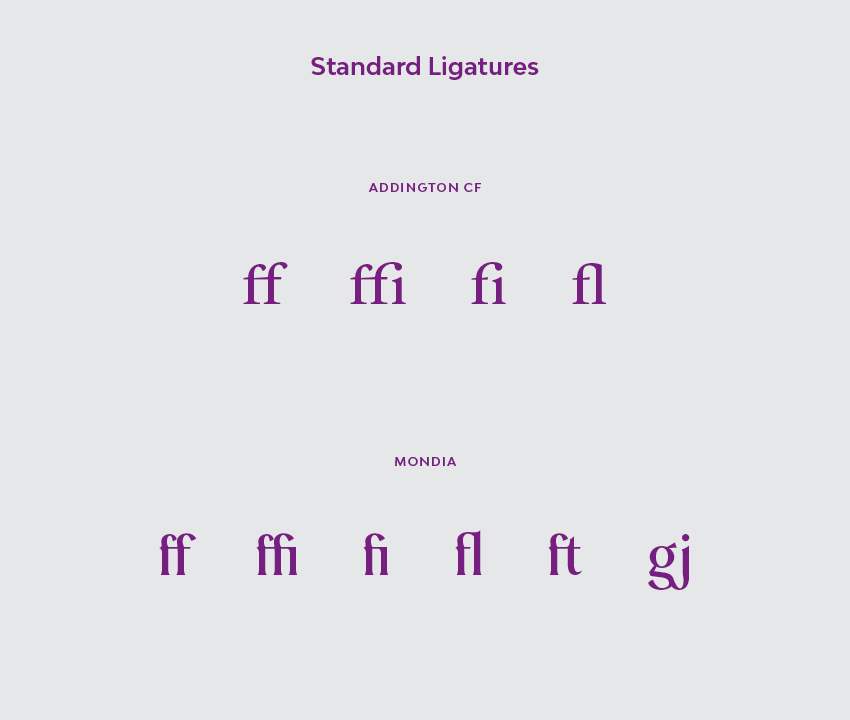
The second type of ligature is discretionary ligatures, and these tend to be decorative. These ligatures also combine two or three characters into a single graceful character design. Combinations like TH, th, ck, ct, et, and st exist, as do double characters like oo, tt, and ll. Just like standard ligatures, these types of ligatures need to be used carefully.
It’s important to clarify that not every font contains standard and discretionary ligatures. Every font is different, and it’s ultimately the font designer’s decision to include them.
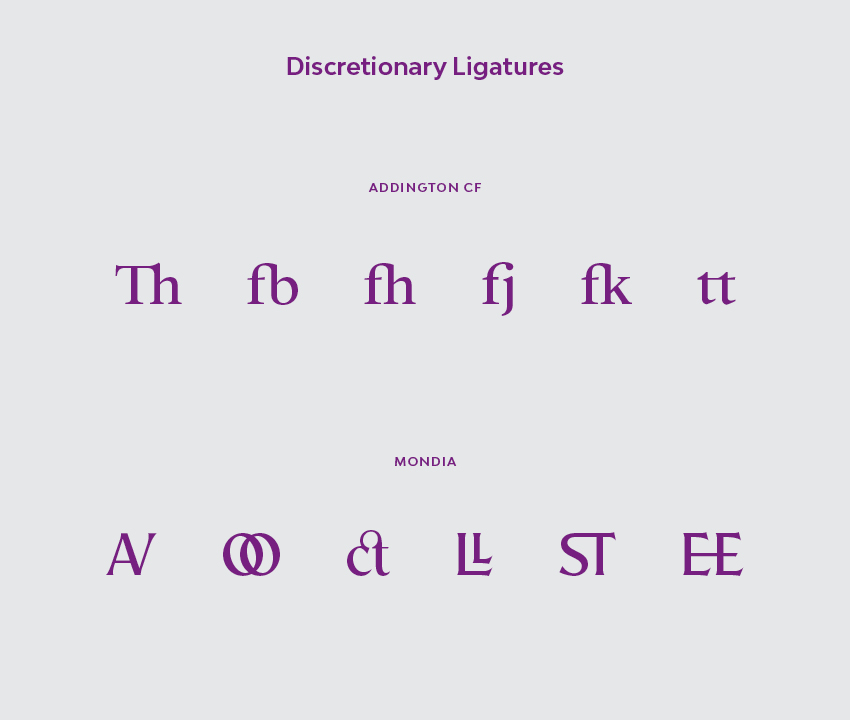
Open Adobe InDesign and create a new document. Head over to Window > Type > Glyphs to open the Glyphs panel.
To activate or deactivate ligatures, open the Character panel by going to Window > Type > Character. Click on the top right corner menu and select Ligatures to activate or deactivate them.
Select the Text Tool (T) from the toolbar and type any text. For this tutorial, I’ll use “THE TWIN MOON INN”. Set the Font to Mondia.
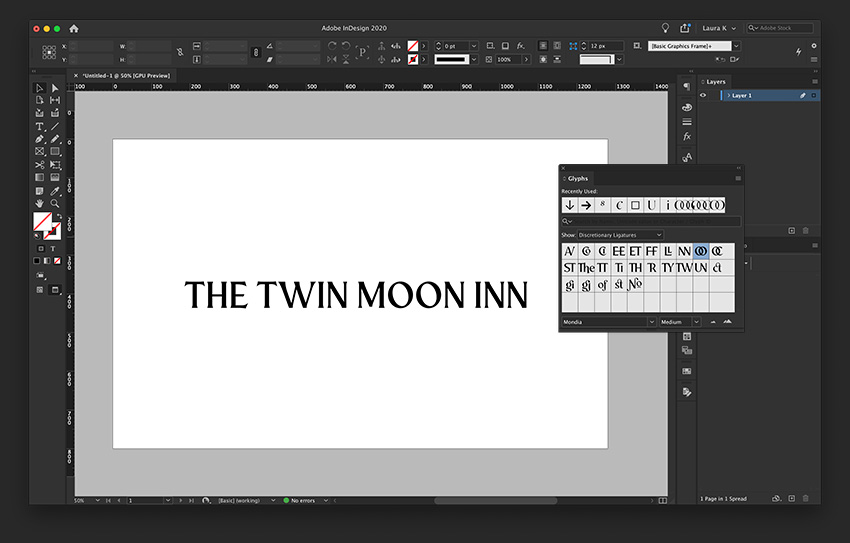
On the Glyphs panel, set the subset of glyphs to Standard Ligatures.
To use the ligatures on the Glyphs panel, select the pair of characters you would like to change using the Text Tool (T). Double-click on the ligature of your choice on the Glyphs panel. Remember to activate the ligatures on the Character panel if you want them to appear automatically.
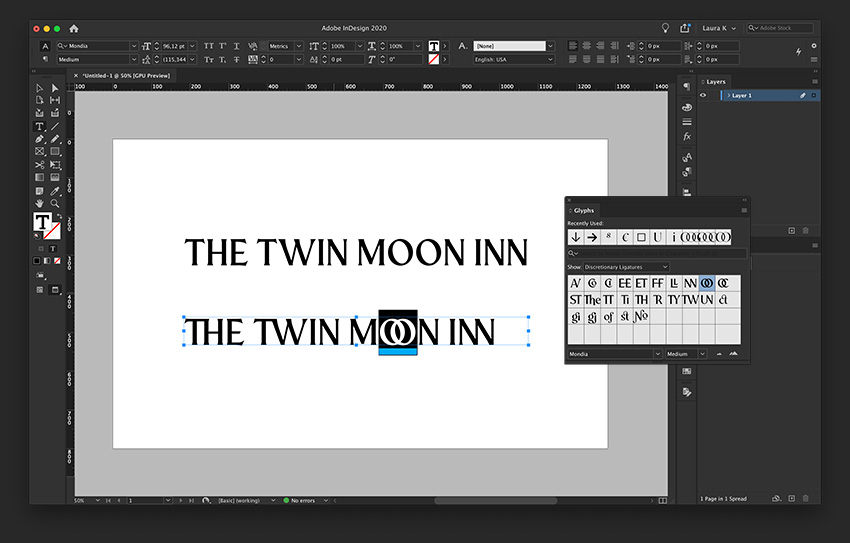
Open Adobe Photoshop and create a new document. Head over to Window > Glyphs to open the Glyphs panel.
To activate or deactivate automatic ligatures, open the Character panel by going to Window > Character. On this panel, the first button activates Standard Ligatures, while the third button activates Discretionary Ligatures. I will deactivate both so we can take a further look into the Glyphs panel.
Select the Text Tool (T) from the toolbar and type any text. For this tutorial, I’ll use “Chanting at the Inn”. Set the Font to Karin.
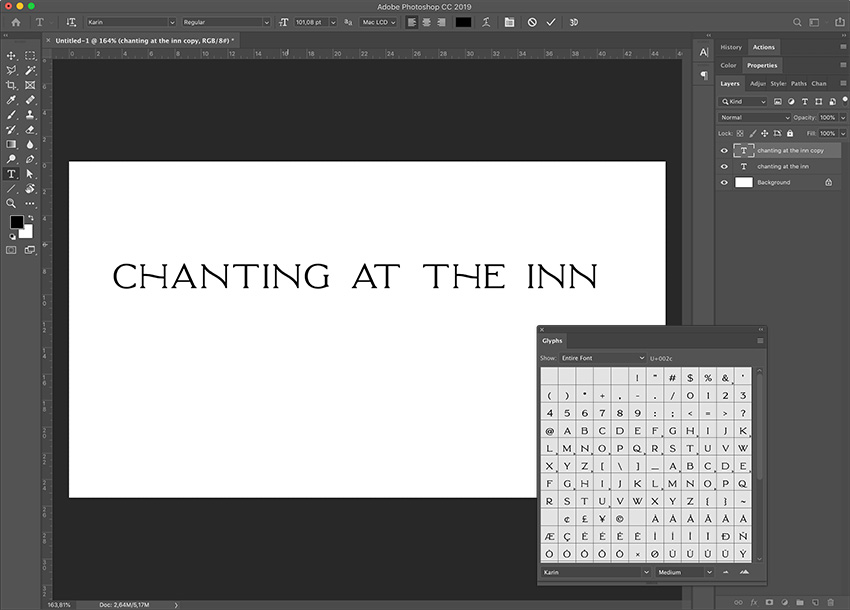
On the Glyphs panel, set the subset of glyphs to Discretionary Ligatures to access the ligatures included in the font. Not all fonts contain both discretionary and standard ligatures, so it’s useful to check both.
To use the ligatures on the Glyphs panel, select the pair of characters you would like to change using the Text Tool (T). Double-click on the ligature of your choice on the Glyphs panel.
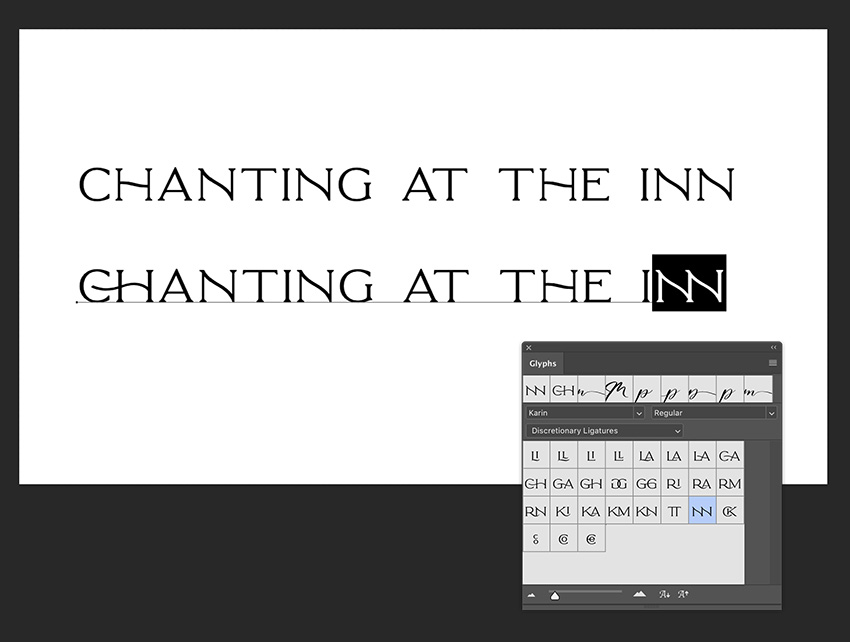
Open Adobe Illustrator and create a new document. Head over to Window > Type > Glyphs to open the Glyphs panel.
To activate or deactivate ligatures, open the OpenType panel by going to Window > Type > OpenType. On this panel, the first button activates Standard Ligatures, while the third button activates Discretionary Ligatures. I will deactivate both so we can take a further look into the Glyphs panel.
Select the Text Tool (T) from the toolbar and type any text. For this tutorial, I’ll use “finding waffles”. Set the Font to Mondia.
Mondia contains discretionary and standard ligatures. On the Glyphs panel, set the subset of glyphs to Standard Ligatures.
To use the ligatures on the Glyphs panel, select the pair of characters you would like to change using the Text Tool (T). Double-click on the ligature of your choice on the Glyphs panel. Remember to activate the ligatures on the OpenType panel if you want them to appear automatically.